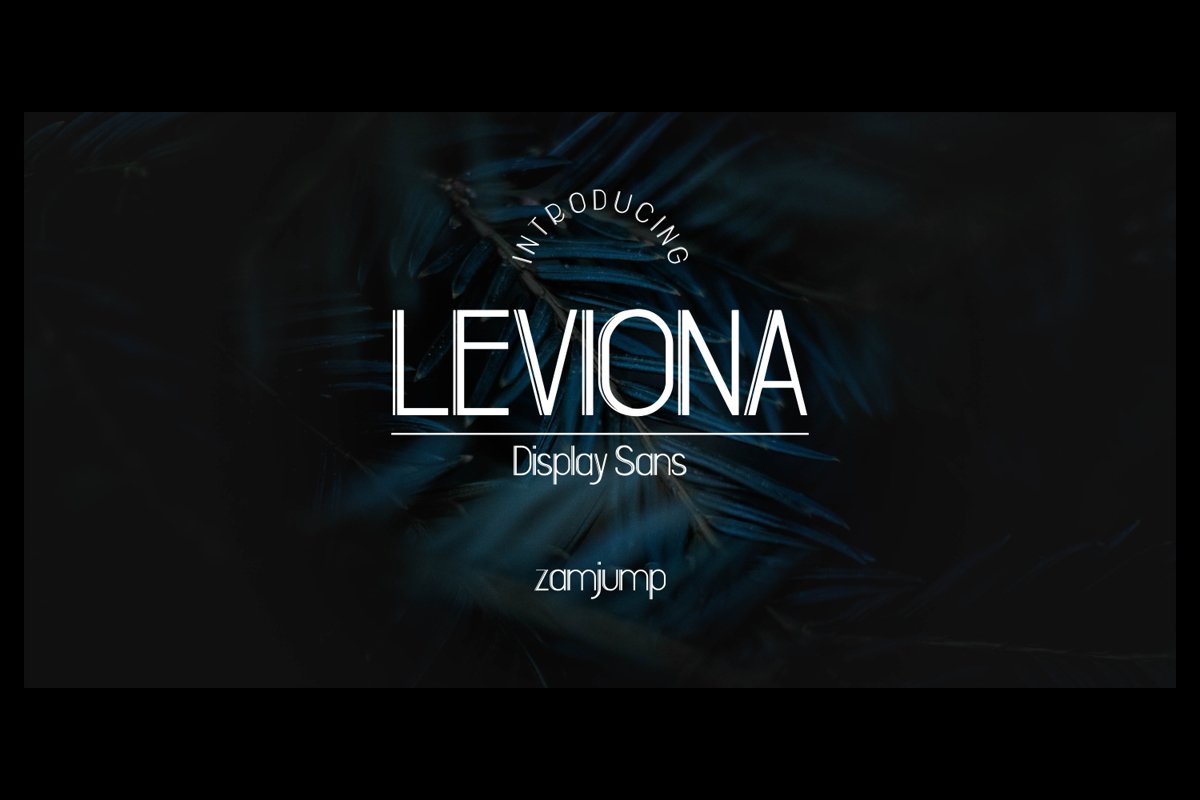
LEVIONA DISPLAY SANS
LEVIONA
leviona is a series of display fonts that are charming, decisive and straightforward. with this font you can make things more dynamic, some that you can make like previews that already exist, and do not rule out the possibility of more you can do, just need a little creativity to arrange it. with two lines on the left and a thin line on the right side makes this font seem more elegant.